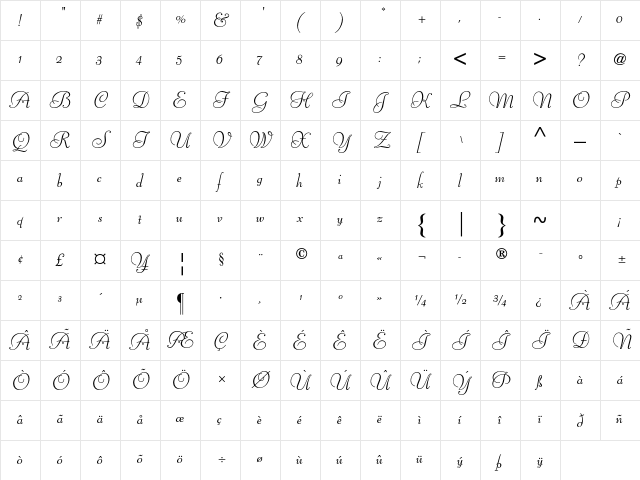
AT Liberty Std Regular
Design Context for AT Liberty Std
AT Liberty Std is a composed and adaptable typeface that performs quietly and consistently across a wide range of design contexts.